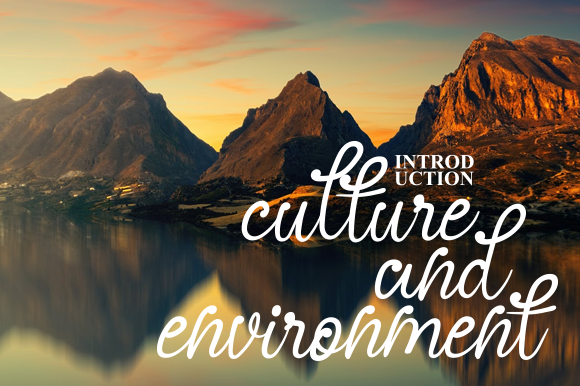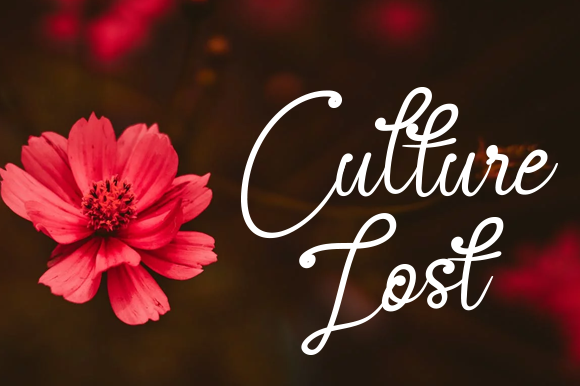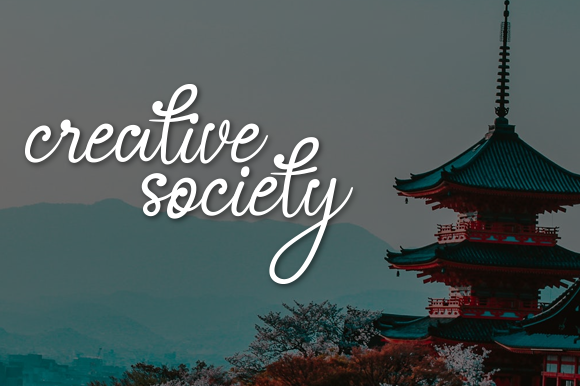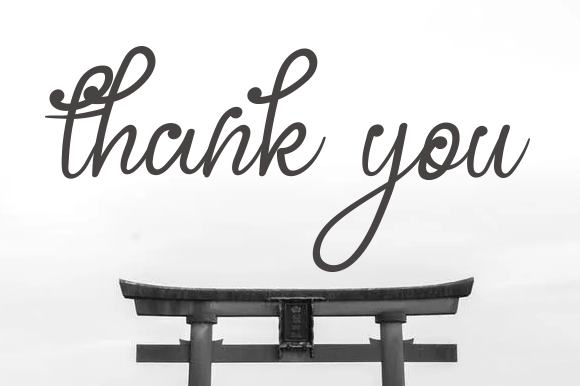
Cila Bali Font: Elevate Your Designs with Elegance and Charm
Are you looking for a font that exudes elegance and charm? Look no further than Cila Bali Font. This stunning display font is perfect for designers and crafters who want to take their projects to the next level. With its unique blend of sophistication and playfulness, Cila Bali Font is sure to impress.
A Font that Feels Equally Charming and Elegant
Cila Bali Font is a masterclass in font design. Its elegant lines and curves make it perfect for a wide range of design projects, from branding and headings to wedding designs and invitations. Whether you’re creating a logo, label, or signature, this font is sure to add a touch of sophistication and style.
One of the best things about Cila Bali Font is its versatility. This display font can be used for a wide range of design projects, including:
- Branding: Create a lasting impression with Cila Bali Font, perfect for logos, business cards, and letterheads.
- Headings: Add a touch of elegance to your headings and titles with this beautiful font.
- Wedding Designs: Make your wedding designs truly special with Cila Bali Font, perfect for invitations, programs, and more.
- Invitations: Create stunning invitations for any occasion, from birthdays to graduations.
- Signatures: Add a personal touch to your signatures with this beautiful font.
- Logos: Create a unique and memorable logo with Cila Bali Font.
- Labels: Add a touch of style to your labels with this versatile font.
Why Choose Cila Bali Font?
So why choose Cila Bali Font over other fonts? Here are just a few reasons:
- Elegance and Charm: Cila Bali Font exudes elegance and charm, making it perfect for designers and crafters who want to create sophisticated designs.
- Versatility: This display font can be used for a wide range of design projects, making it a great addition to any design library.
- Easy to Read: Despite its elegant lines and curves, Cila Bali Font is easy to read, making it perfect for body text and headings.
- Unique: Cila Bali Font is a unique and distinctive font that will set your designs apart from the crowd.
Tips for Using Cila Bali Font
Here are a few tips for getting the most out of Cila Bali Font:
- Use it sparingly: Cila Bali Font is a display font, so use it sparingly to add emphasis and style to your designs.
- Pair it with other fonts: Cila Bali Font pairs well with other fonts, so don’t be afraid to experiment with different combinations.
- Experiment with sizes and colors: Cila Bali Font looks great in a range of sizes and colors, so experiment to find the perfect combination for your design.
Cila Bali Font is a stunning display font that is sure to elevate your designs to the highest level. With its unique blend of elegance and charm, this font is perfect for designers and crafters who want to create sophisticated and stylish designs. Whether you’re creating branding, headings, wedding designs, or invitations, Cila Bali Font is the perfect choice.